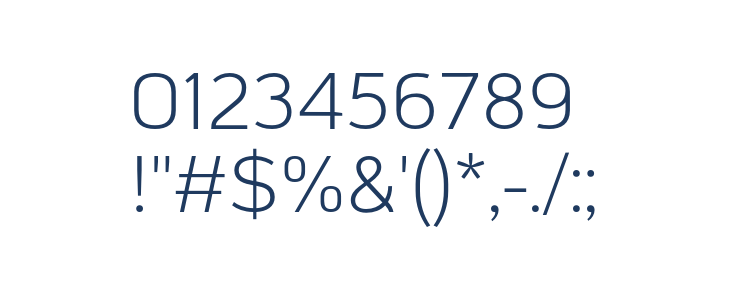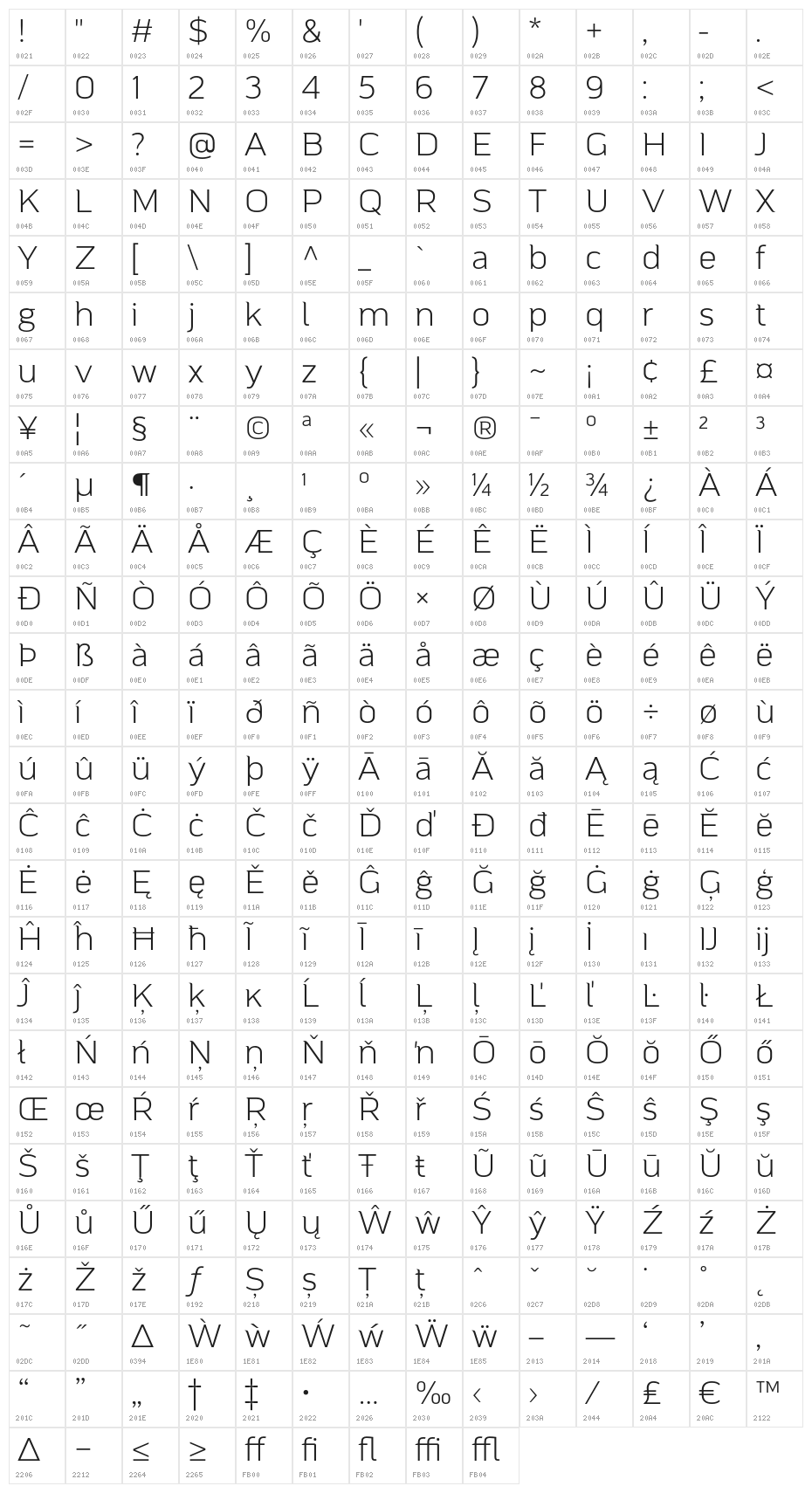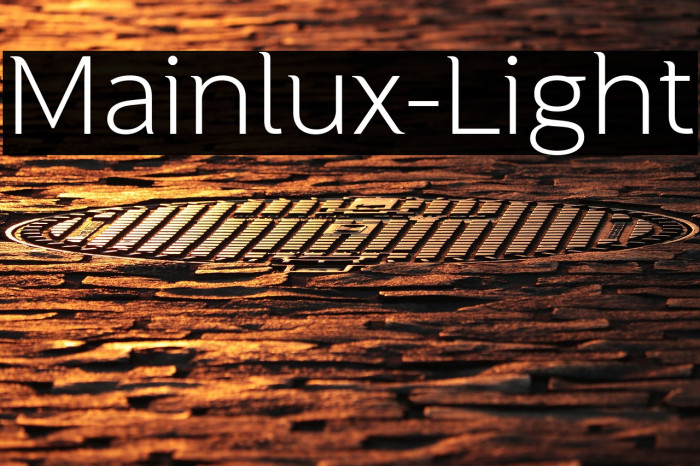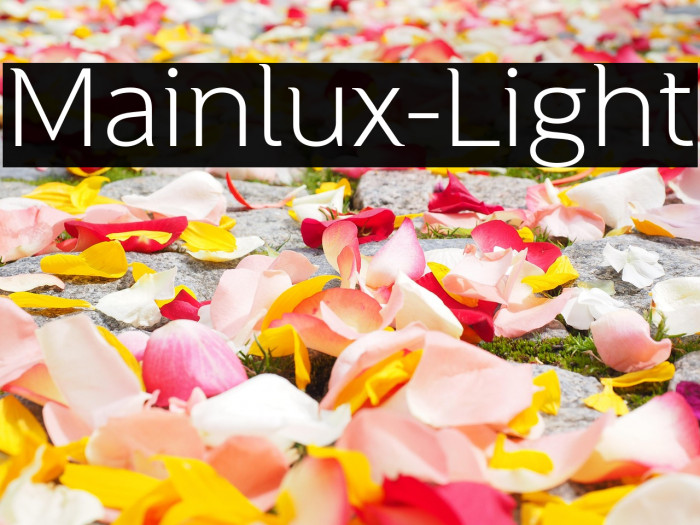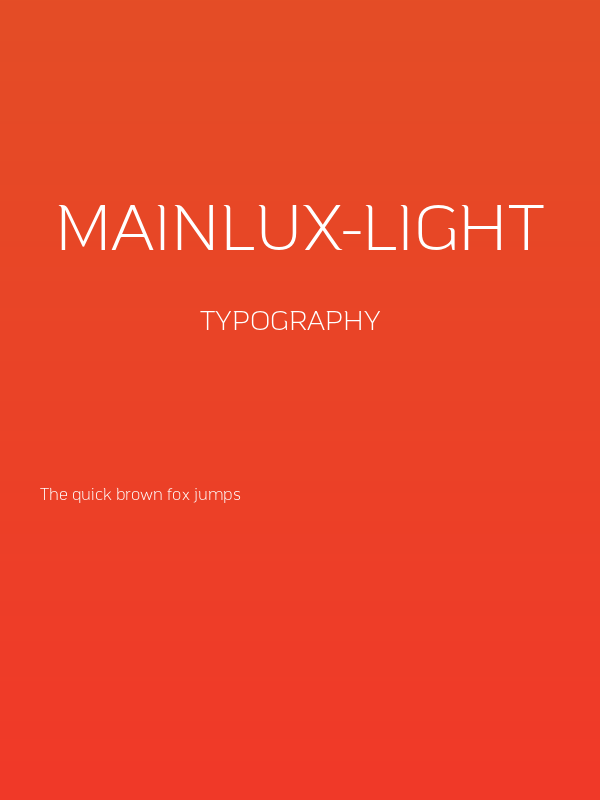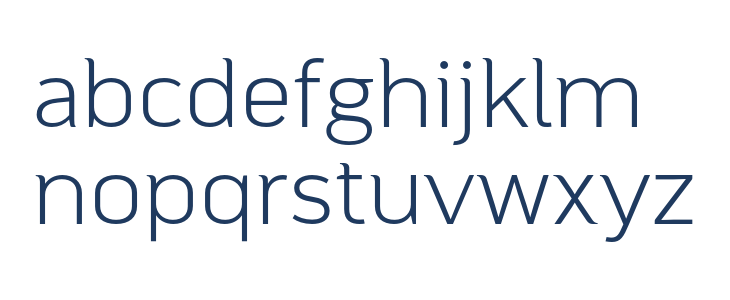
Mainlux-Light Font
Mainlux-Light Description
This font exhibits a clean and modern sans-serif style, characterized by its light weight and minimalistic design. The characters are evenly spaced, providing a balanced and harmonious appearance. The uppercase and lowercase letters maintain a consistent height, contributing to its readability. The numerals are straightforward and align well with the overall aesthetic. Special characters are designed with simplicity, ensuring they blend seamlessly with the rest of the typeface. The font's sleek and contemporary look makes it suitable for various digital and print applications.
| Use Case | Headlines, Body text, Logos |
| Proposed Projects | Ideal for web design, corporate branding, user interfaces, and minimalist print materials. |